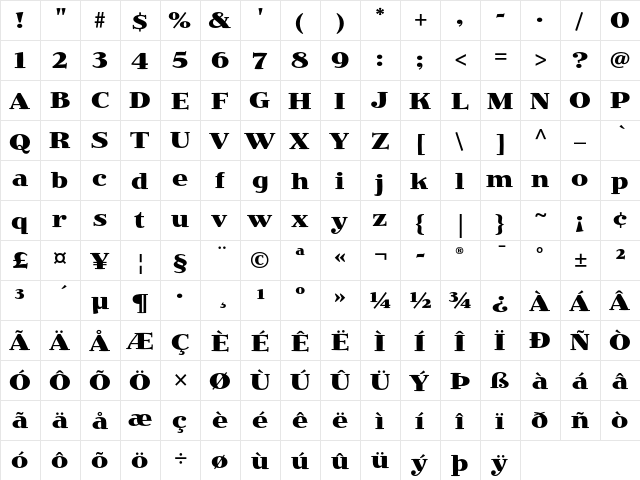
Jimbo Bold
Design Context for Jimbo Typeface
Jimbo offers clean, dependable letterforms without strong stylistic allegiance, making it a practical choice for designers who need flexibility. Its bold stroke weight gives it real presence on the page.